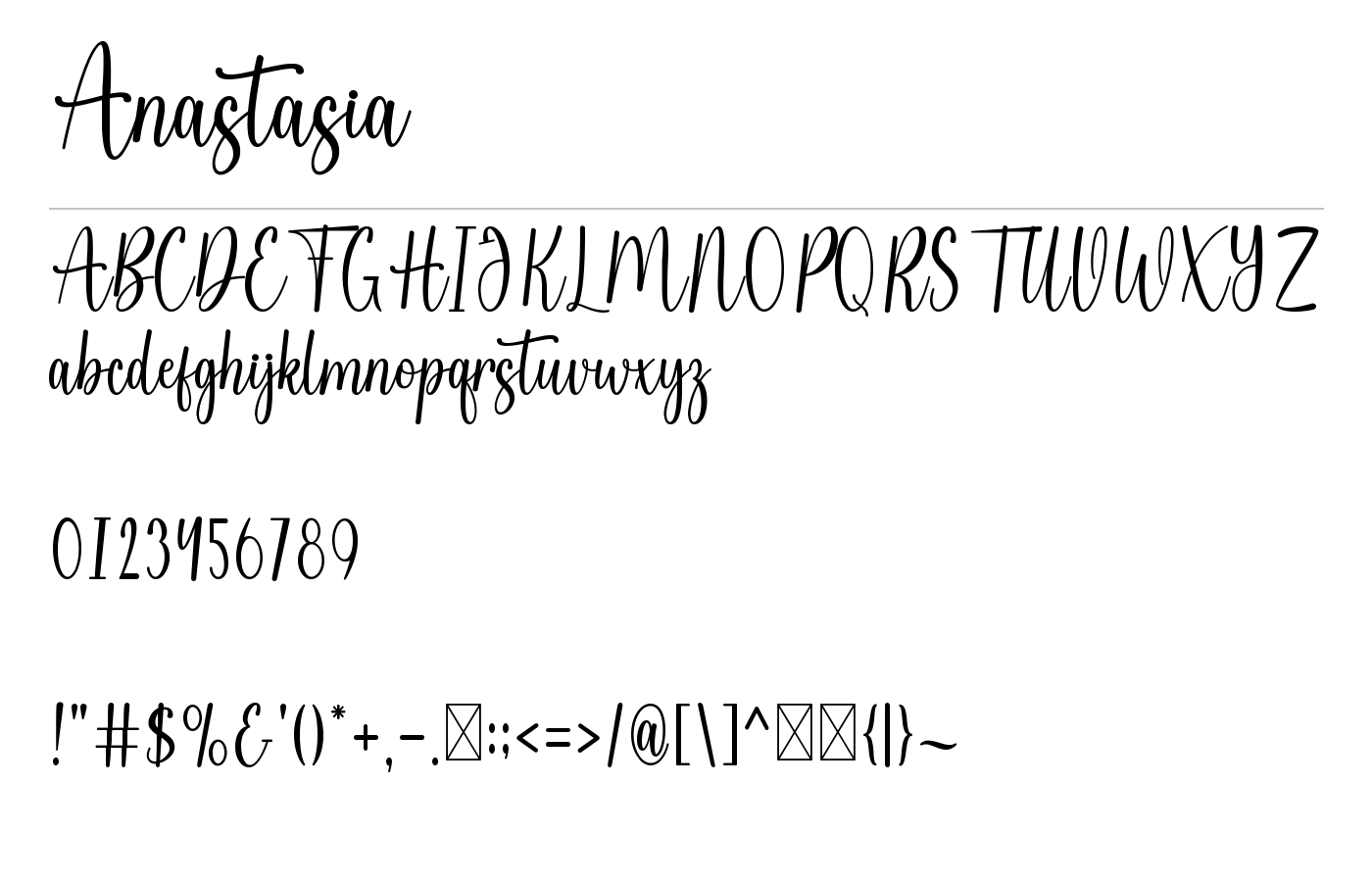
Anastasia is a delicate, handwritten script font with a tall, narrow structure and elegant flowing strokes. Its slender letterforms and smooth, playful curves make it ideal for feminine branding, invitations, and creative headlines where a personal, stylish touch is desired. This font brings a sense of charm and sophistication while maintaining readability and a modern feel.
Anastasia Font
About Anastasia Font
| Font family | Anastasia Font |
| Designer | Wahyu Setiyawan |